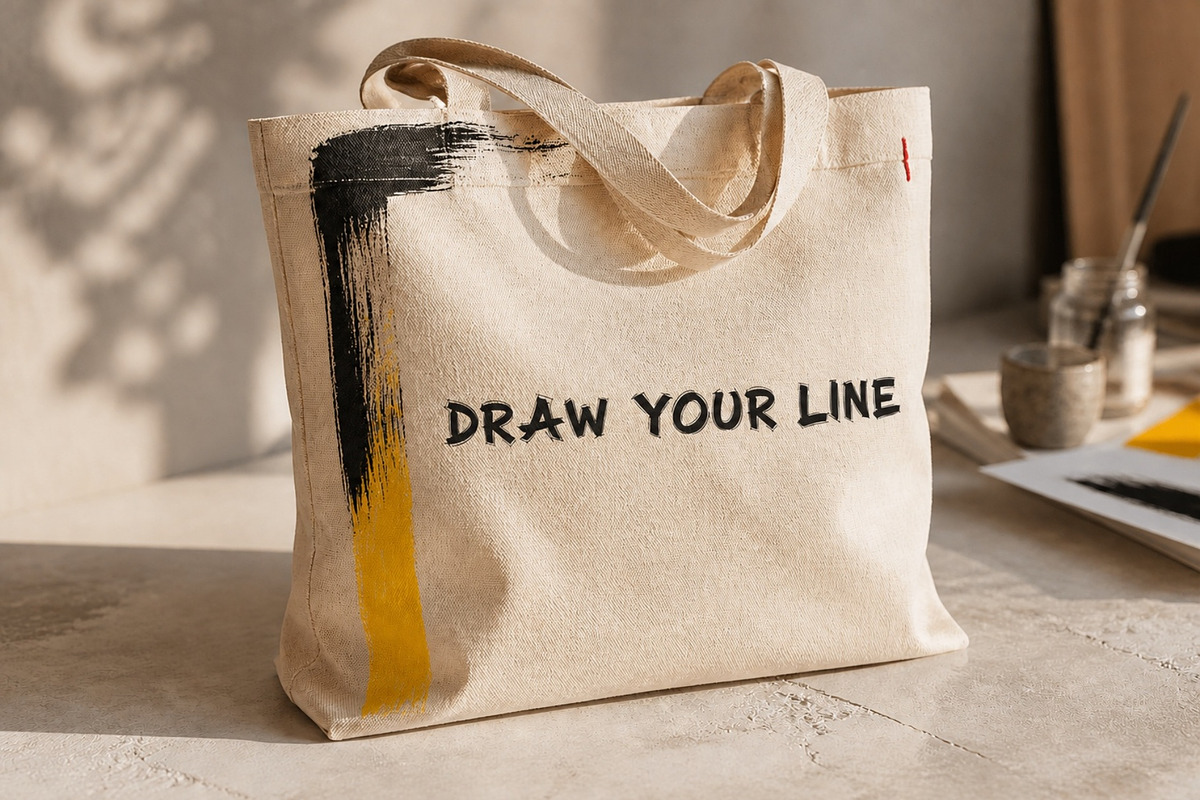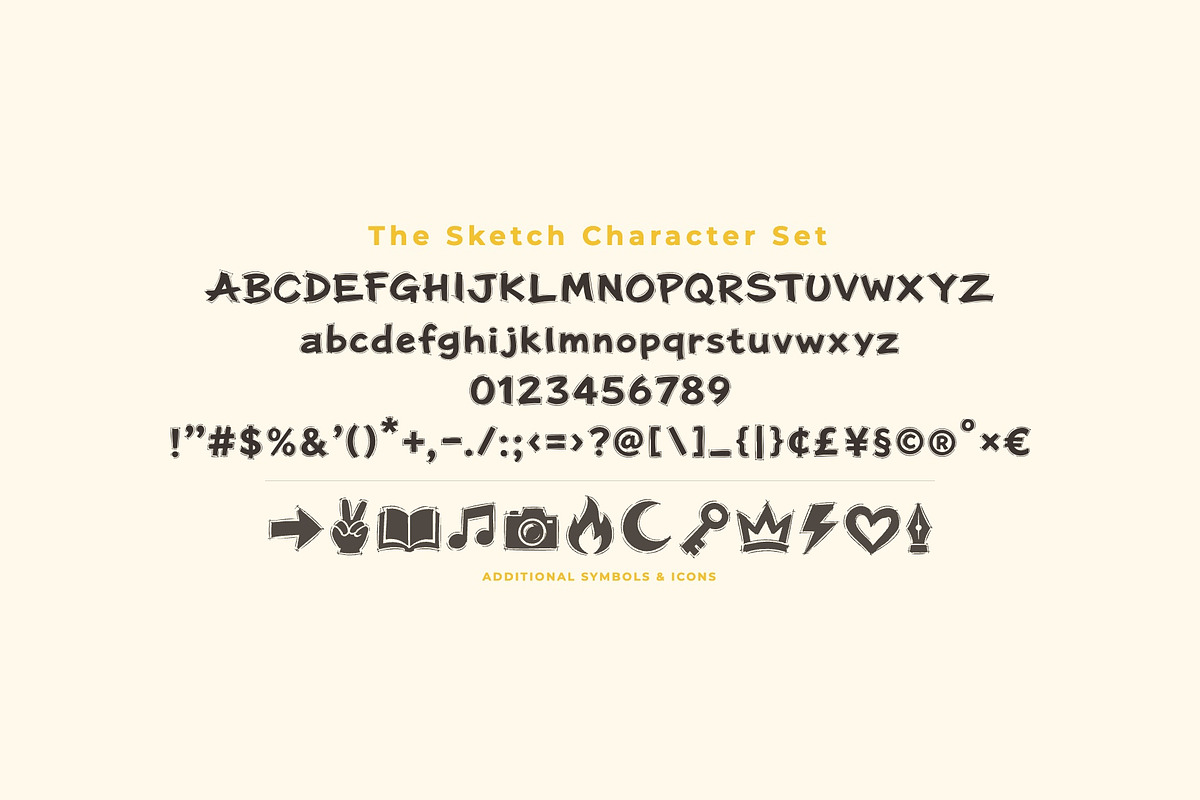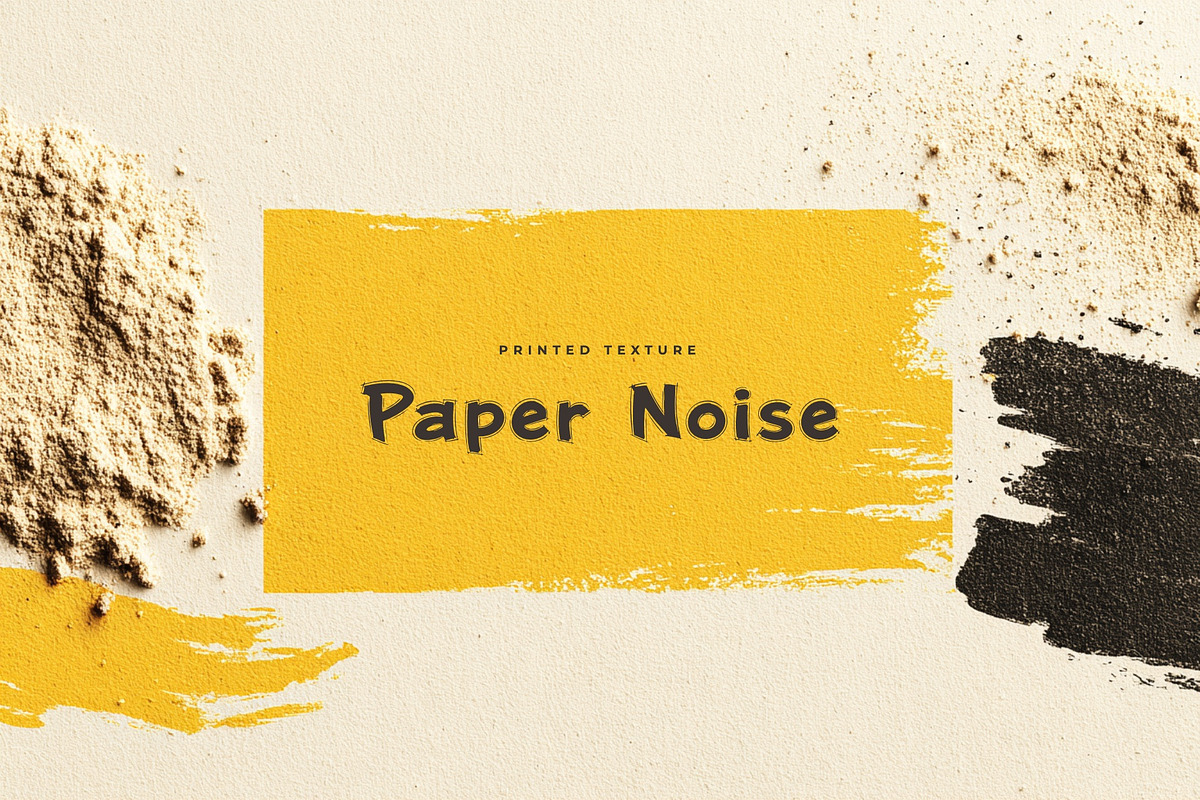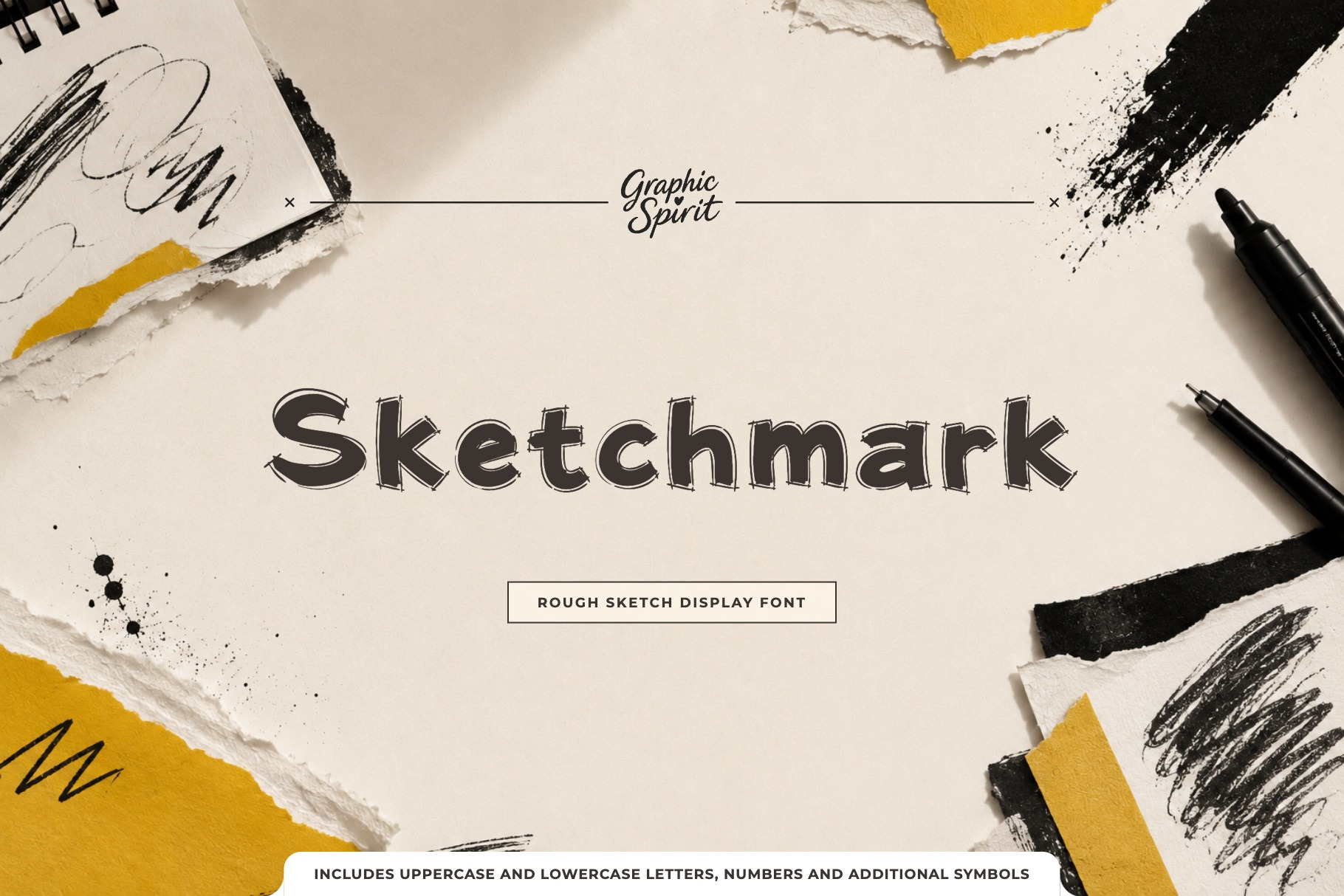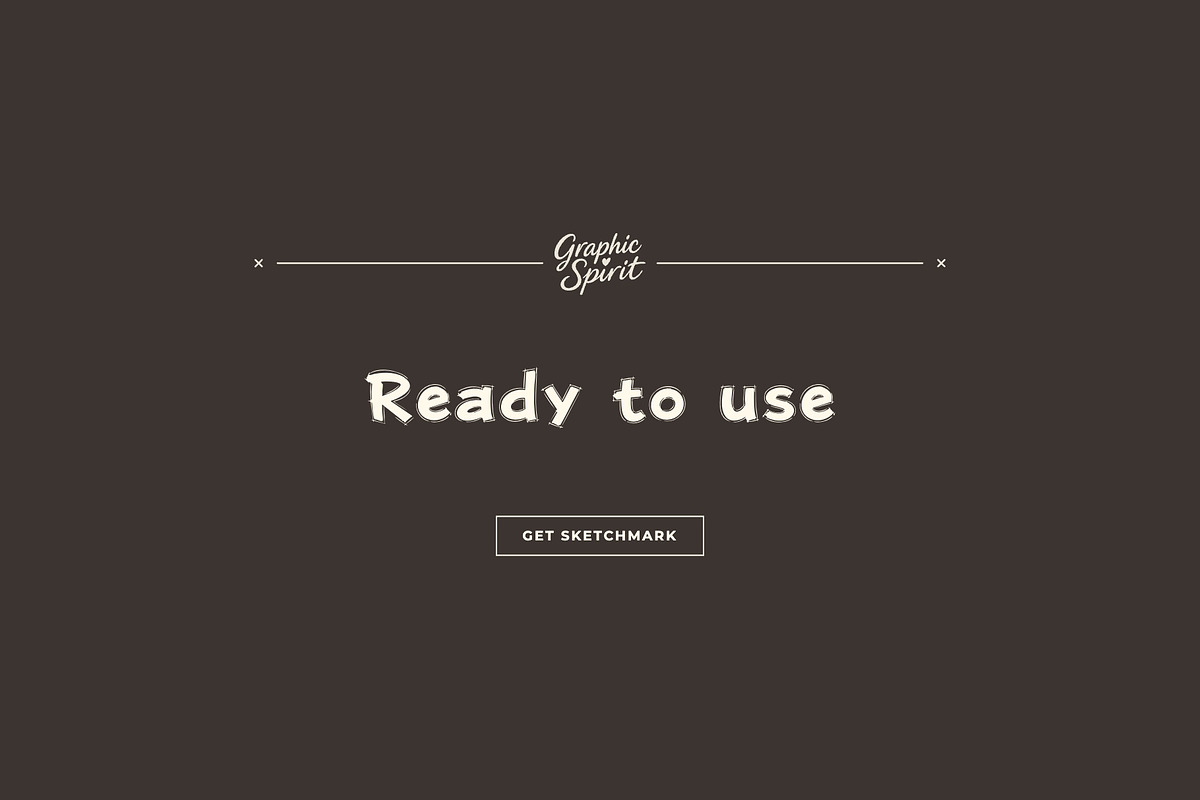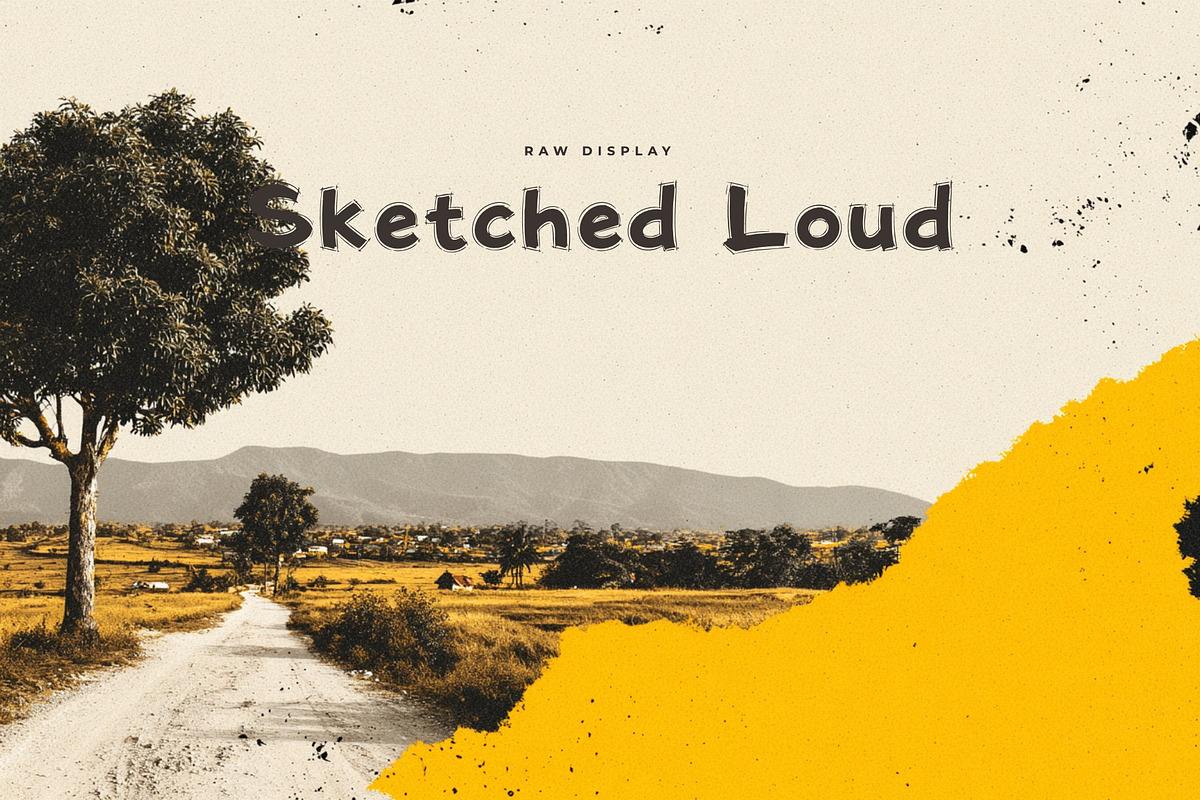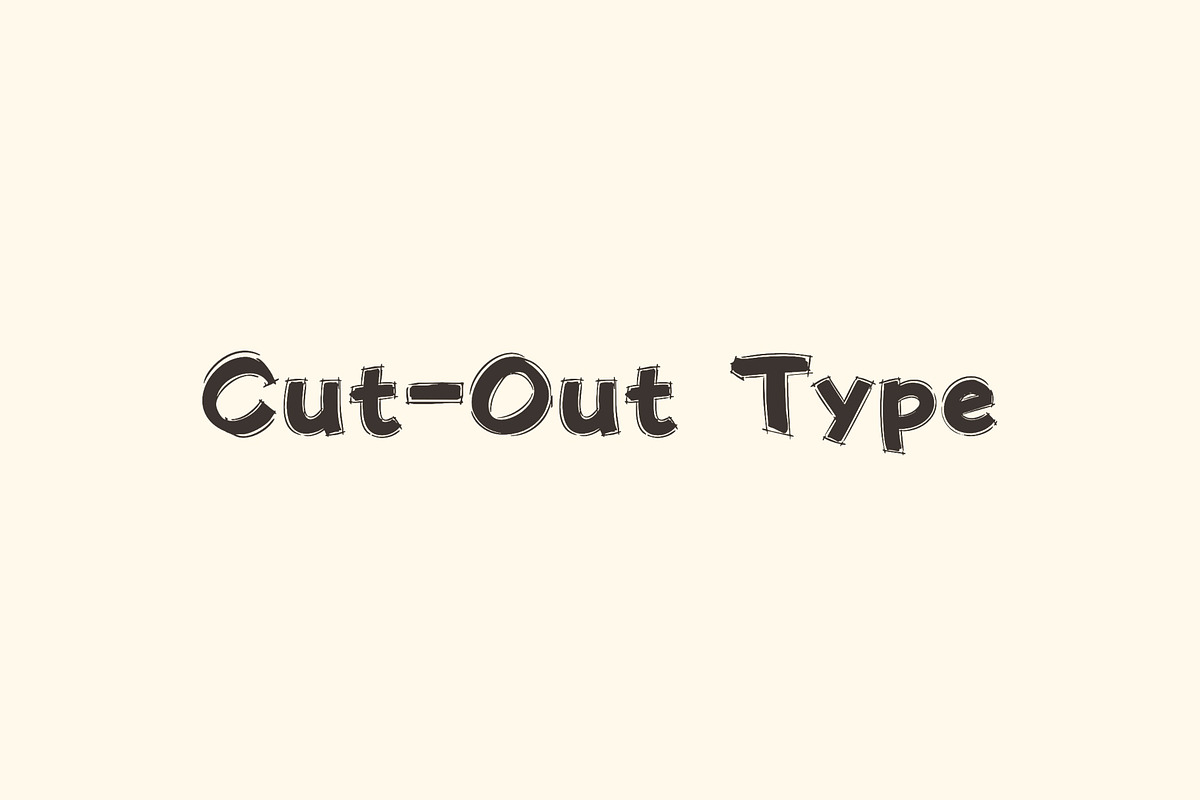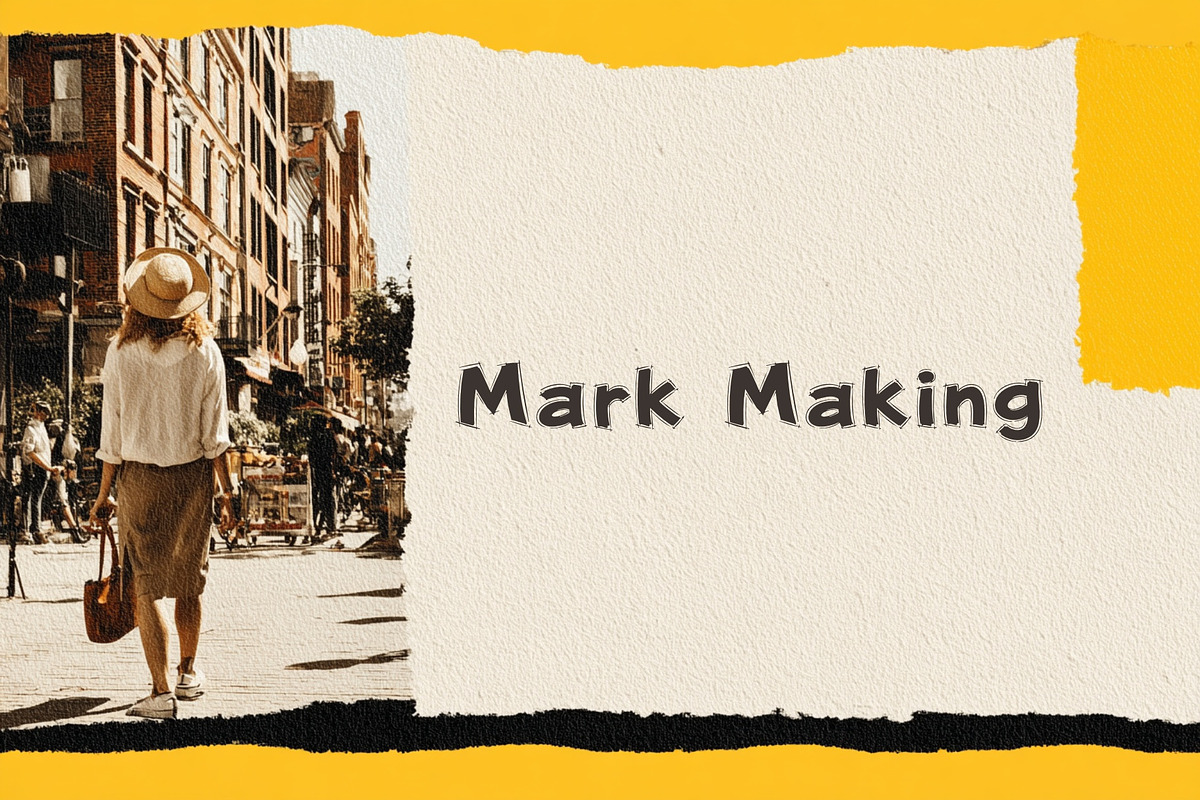
Sketchmark Cut Paper Display Font
✂️ 📓 📰 ✨ Sketchmark is a cut-paper sketch display shaped by rough handmade edges and editorial collage character. It was created for designers and independent brands looking for expressive display typography that feels specific rather than generic.
🎨 The font works beautifully across zines, editorial posters, handmade branding, packaging, book covers. Use it for a confident headline, a memorable product name, or a typographic accent that ties a visual identity together. 💫
🌟 Best for:
- ✂️ Zines
- 📓 Editorial Posters
- 📰 Handmade Branding
- ✂️ Packaging
- 📓 Book Covers